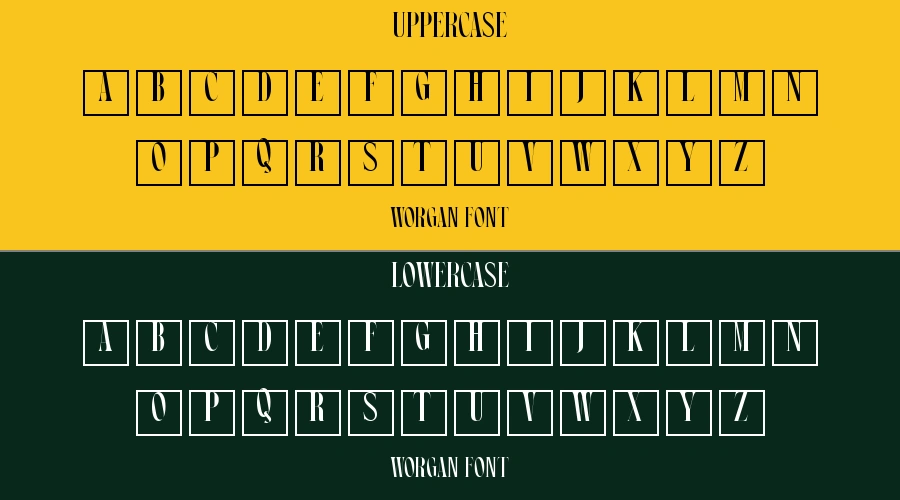
About Worgan Font
Designed with precision, Worgan Font merges rounded serifs with consistency in every character. This versatility makes it particularly effective for packaging hero, where legibility and professional authority directly impact communication quality. Each letterform demonstrates meticulous craftsmanship.
Technical excellence shines through elements like contextual forms and dingbat elements, enhancing typographic versatility. In campaign headers settings, Worgan Font proves its worth through superior large format rendering. The thoughtful execution of curve radius and design lineage ensures professional results.